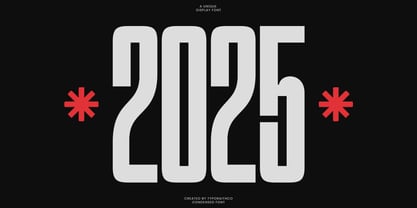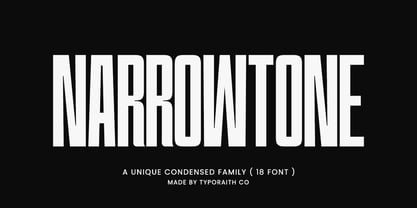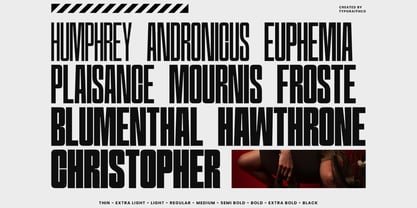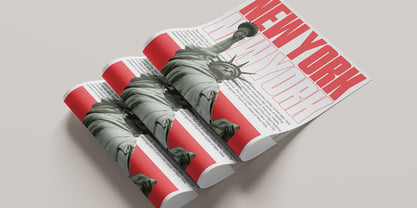
Narrowtone
by Typoraith Co
The Narrowtone Font Family was designed by Rendy Riyananda and published by Typoraith Co. Narrowtone contains 18 styles and family package options. More about this family
Narrowtone Condensed is a modern, high-impact tall and narrow display font designed to make a bold statement. With its strong vertical presence and tight spacing, it’s perfect for headlines, posters, branding, editorial layouts, and more. This typeface comes with 18 variable font styles, ranging from Thin to Black, giving you complete control and flexibility in your design projects. Whether you're creating bold visual compositions or minimalist layouts, Narrowtone Condensed delivers clean, professional results. Key Features: 18 Variable Font Styles Modern condensed design Multilingual support Ideal for posters, editorials, websites, fashion, branding, and album covers Created by Typoraithco, Narrowtone Condensed is the perfect font to elevate your typography with a unique, editorial, and impactful aesthetic.
Designers: Rendy Riyananda
Foundry: Typoraith Co